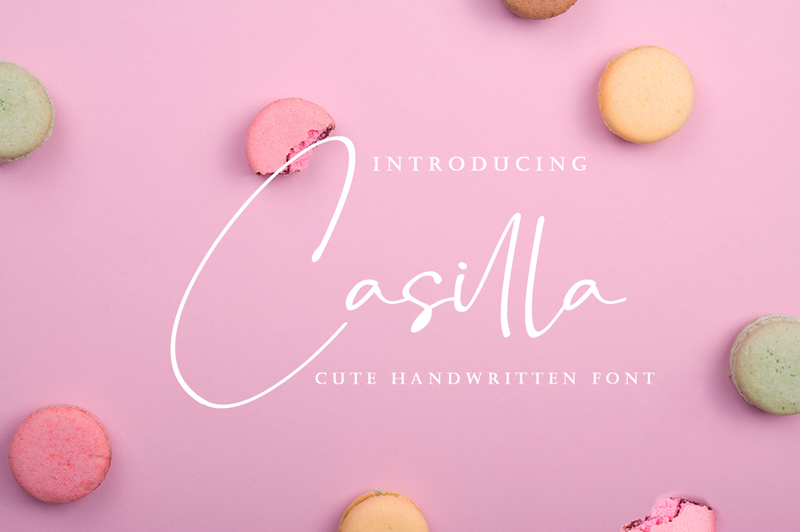
Font name: | Casilla |
Author: | Dimas Aji Virgiawan |
Casilla is a cute handwritten font with a natural sketch. This font is the perfect fit for all of your logos, branding, social media, and crafty DIY projects. This is font free for PERSONAL USE if you need for commercial use, you can buy the lisence here : https://www.creativefabrica.com/product/casilla/ if you have any question, send me a message at dimasajivirgiawan@gmail.com Thank you |